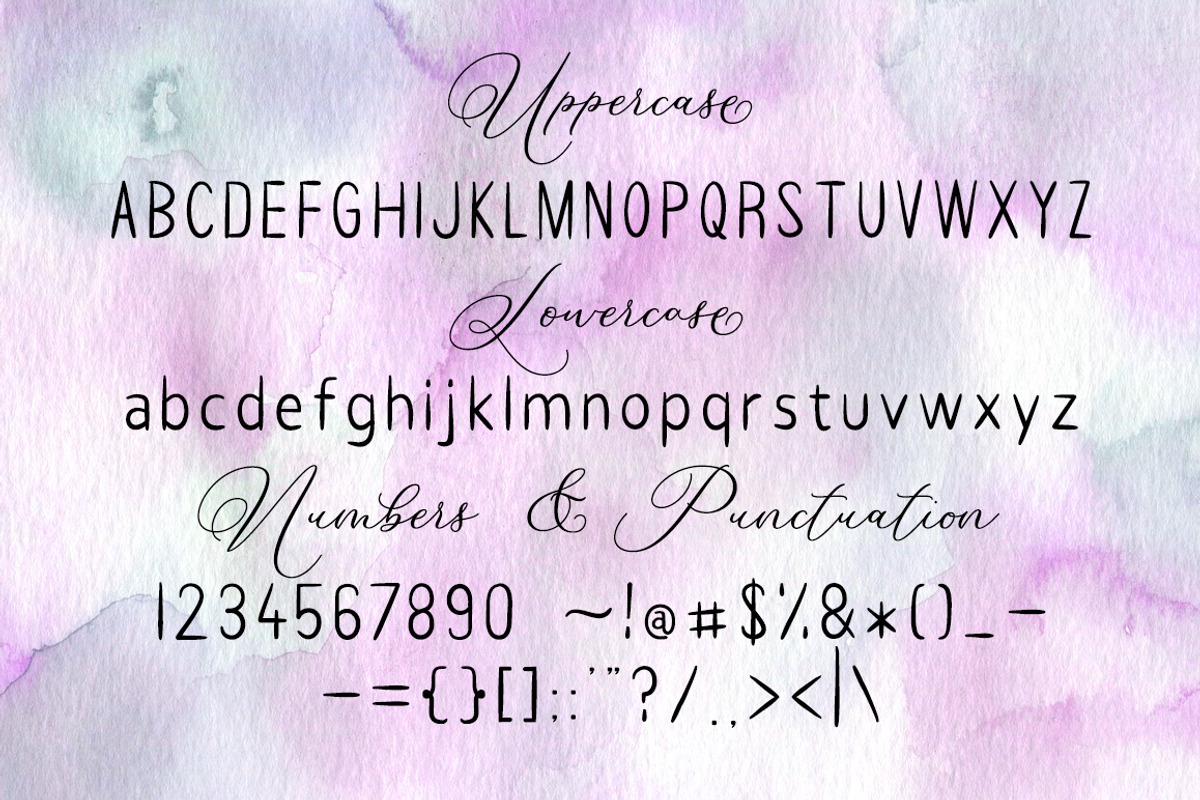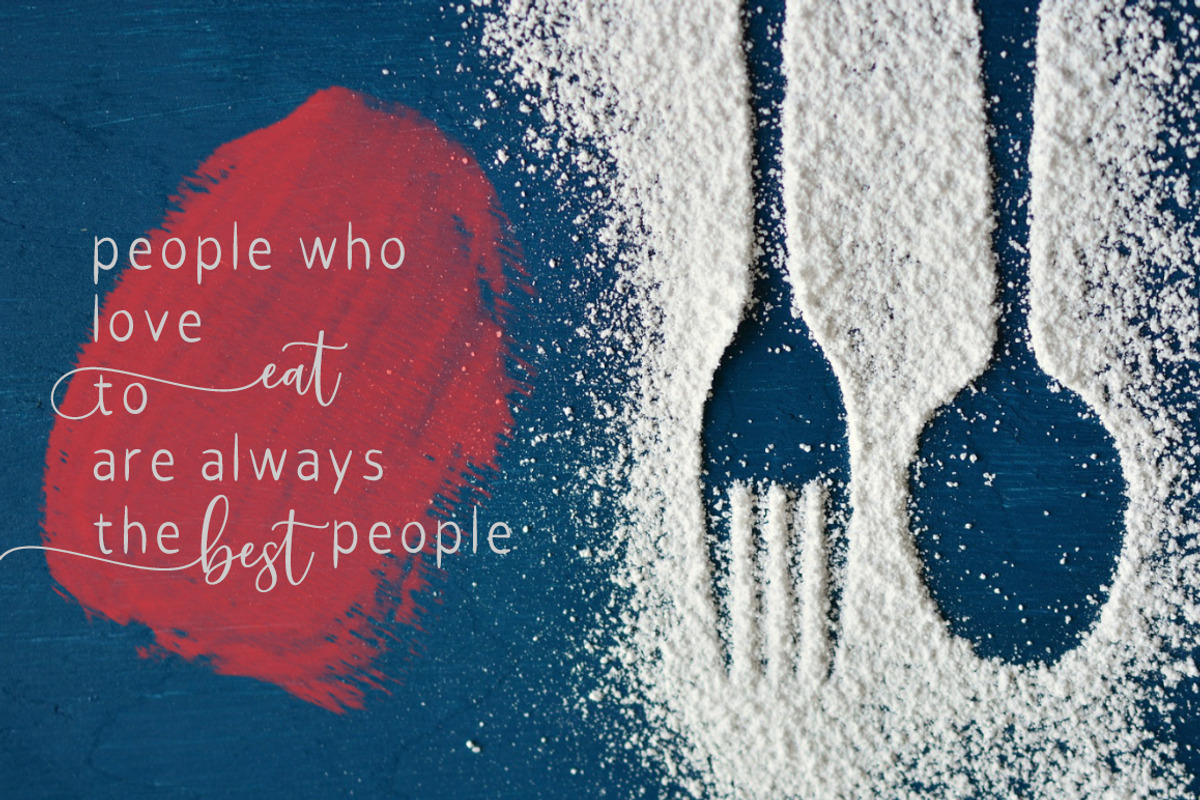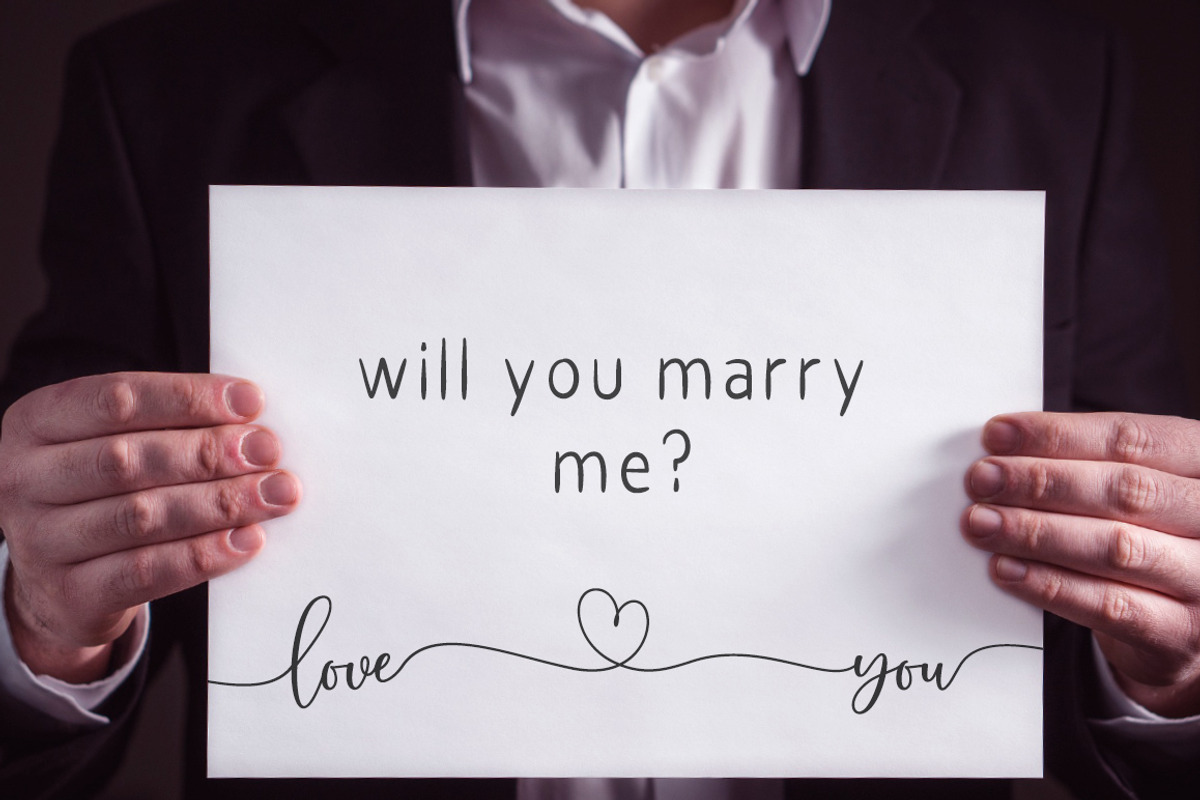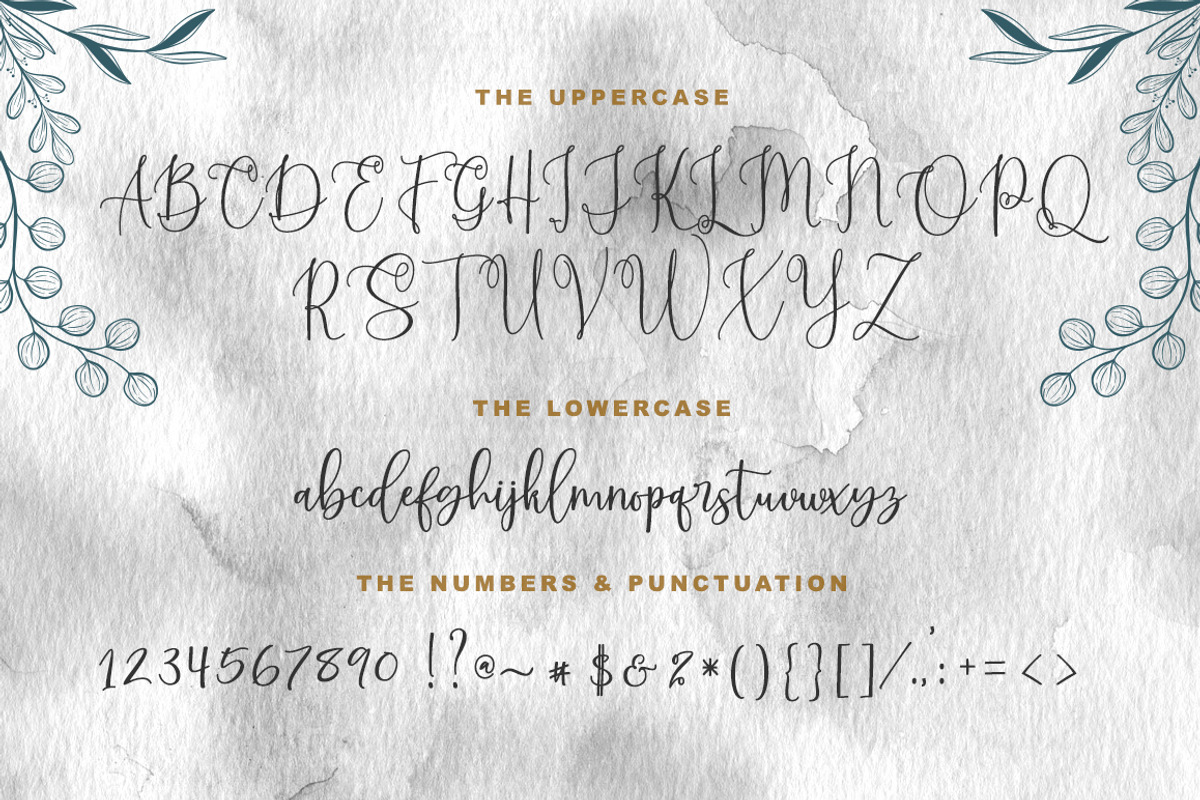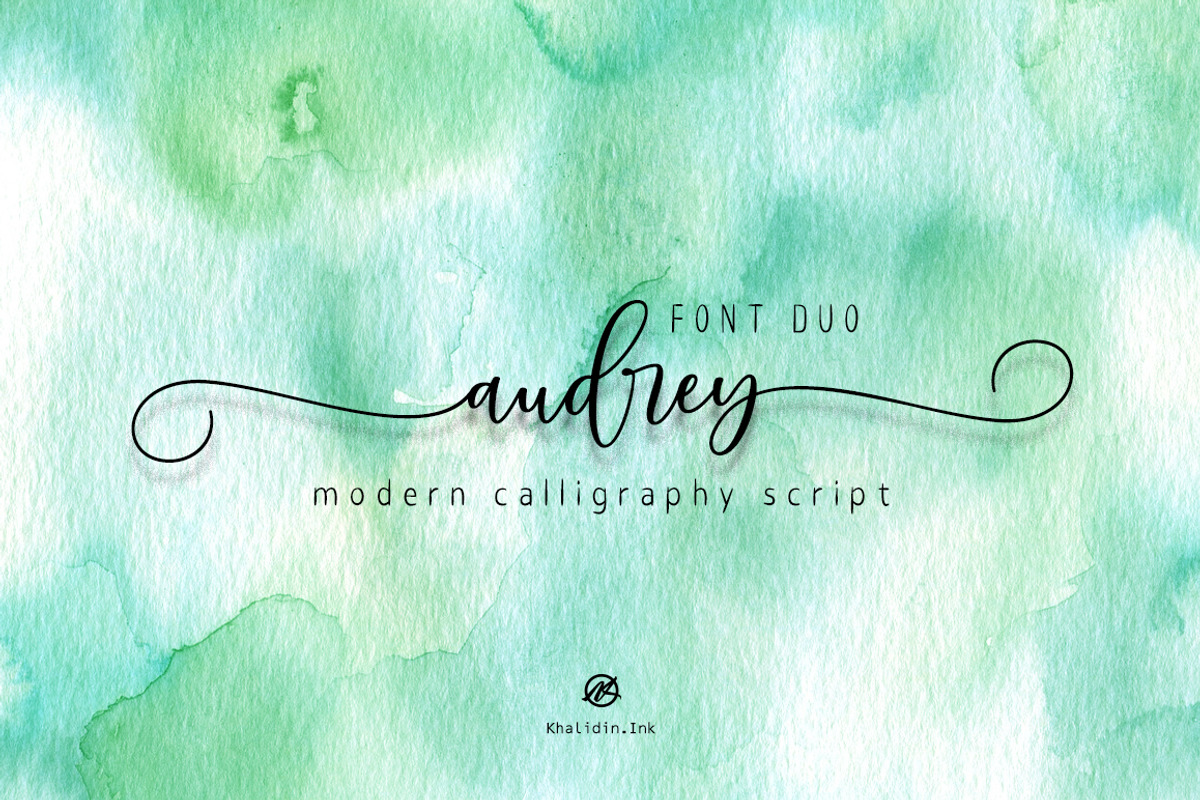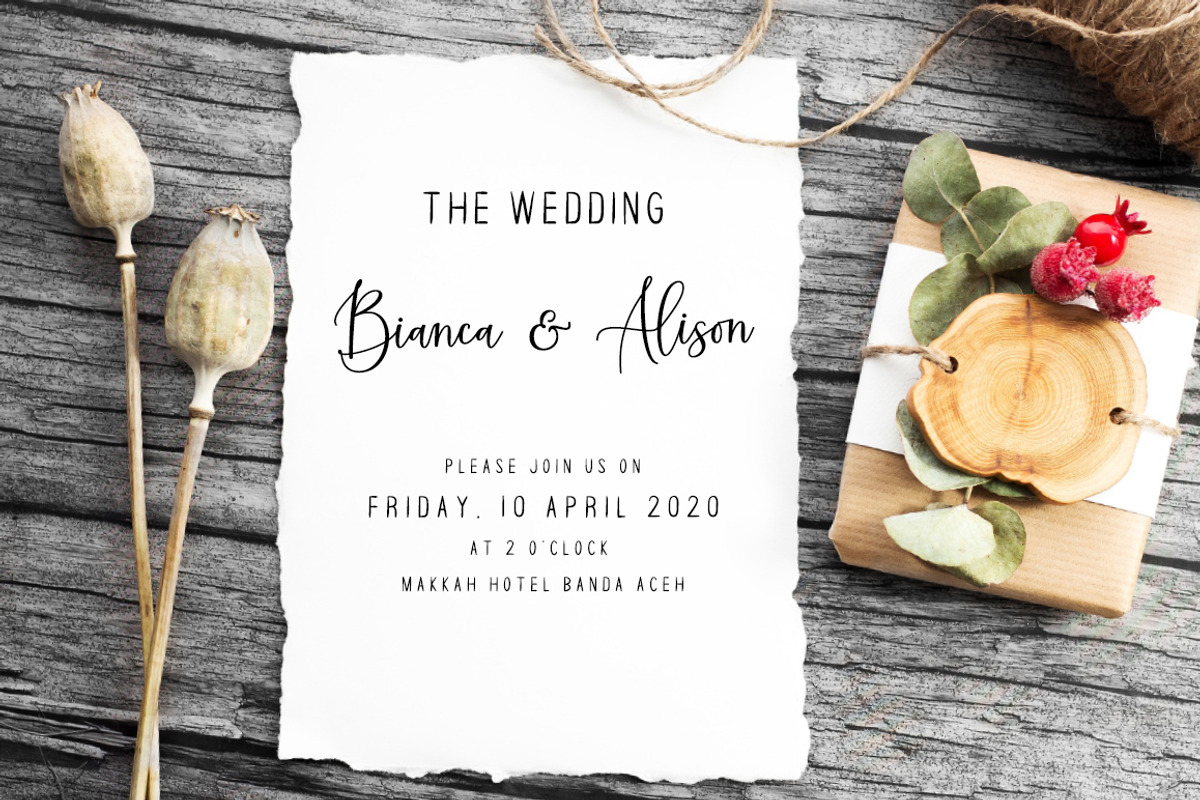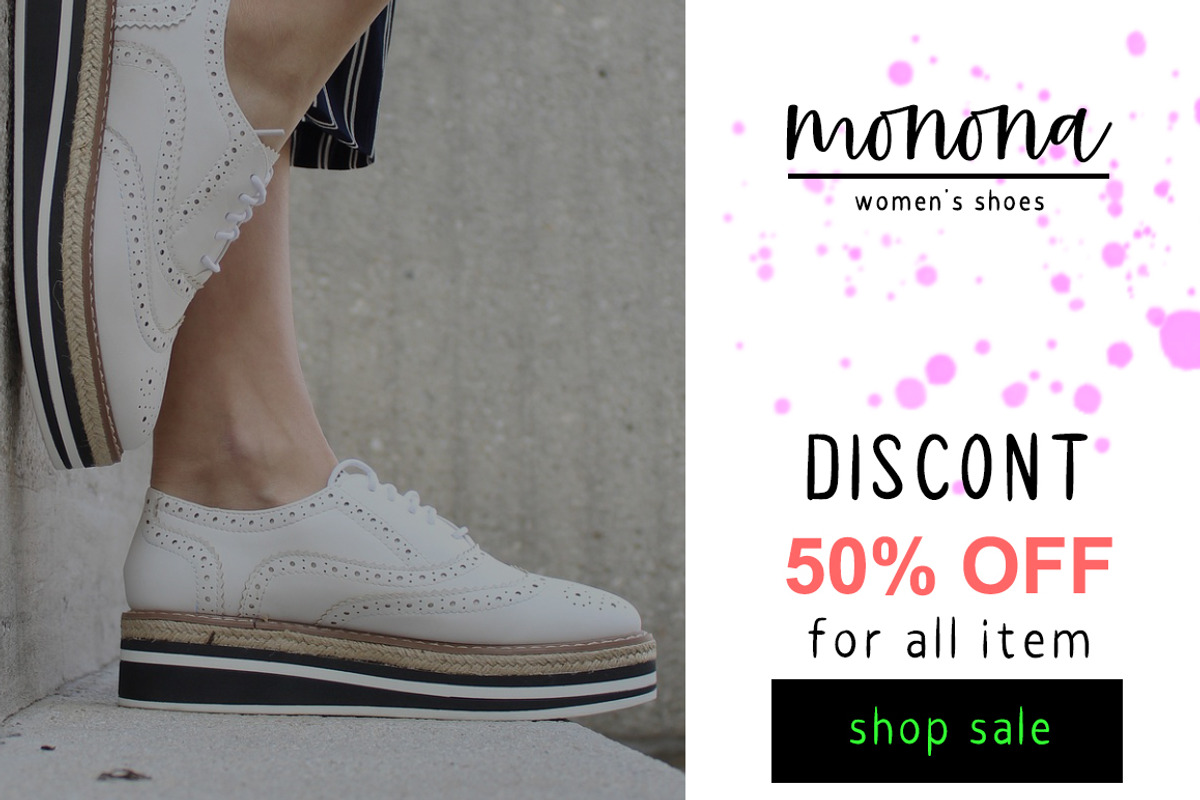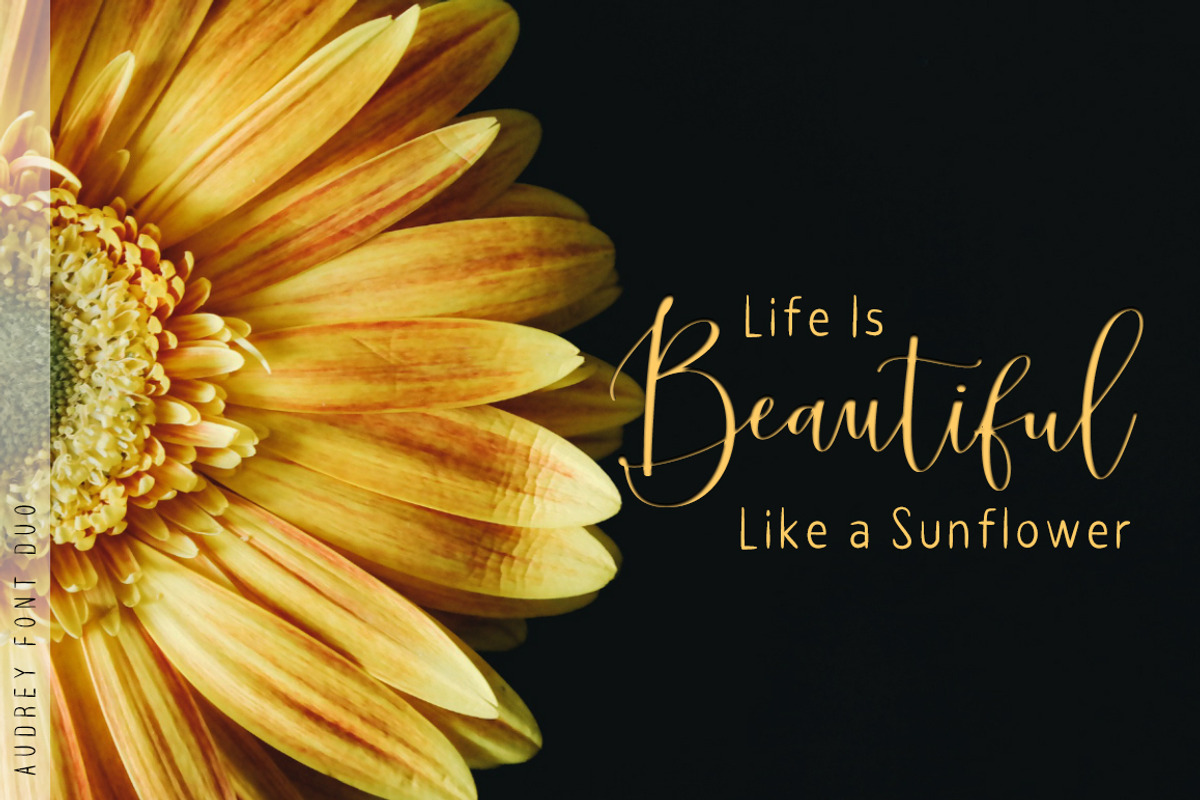
audrey Script Font Duo
Introducing the audrey Script Font duo is a beautiful and sweet script that will turn any design project into a true piece of art. This font also supports multilingual, number and symbol, and many ligatures. Also this font is PUA Encoded.
- This font also supports multilingual, number and symbol, and many ligatures.
Why audrey Script Font Duo is worth a look
audrey Script Font Duo by Khalidin.Ink fits naturally into Branding, posters, packaging, typography.